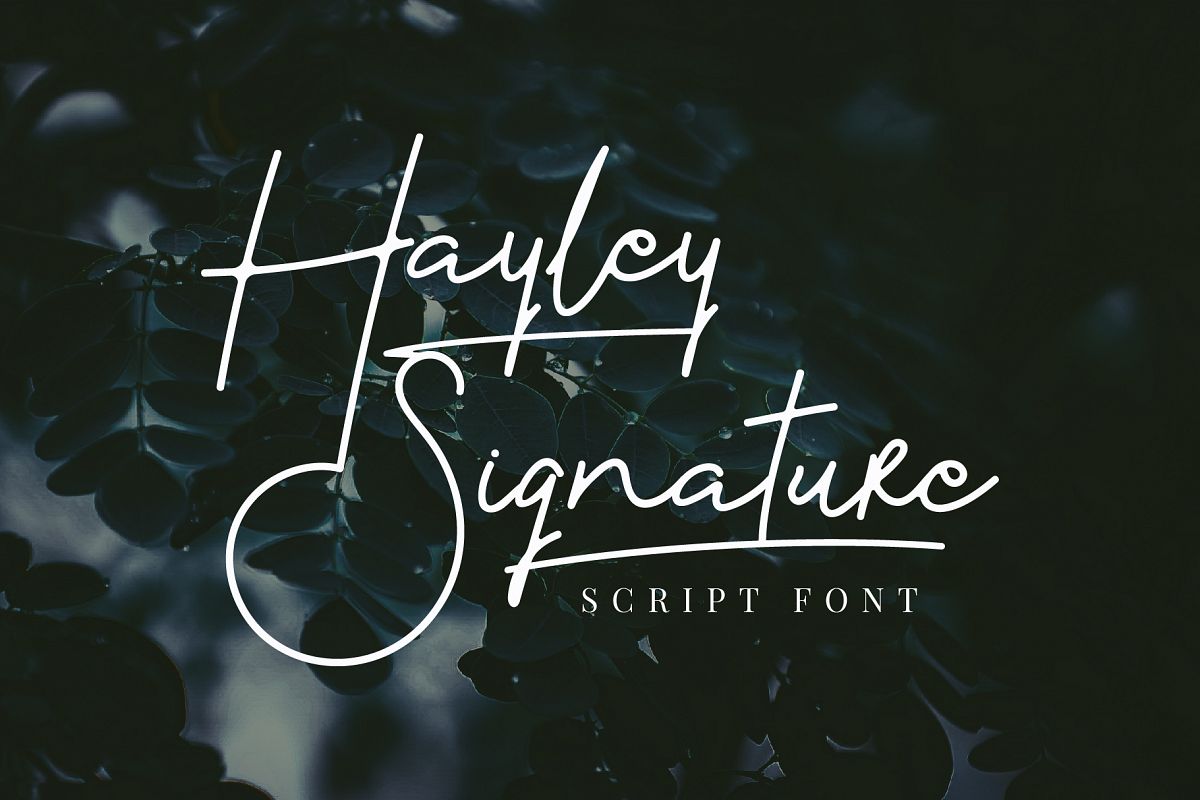
Hayley Signature
Hayley Swash
Introducing new handwritten signature font named Hayley Signature. A monoline font script for your projects that need handwriting feels.
Hayley Signature has been created to make your design looks elegant, classy, and beautiful. You can use me for logo type, packaging, product design and of course for your signature.
Font features :
- Number & Punctuations
- 37 Swashes